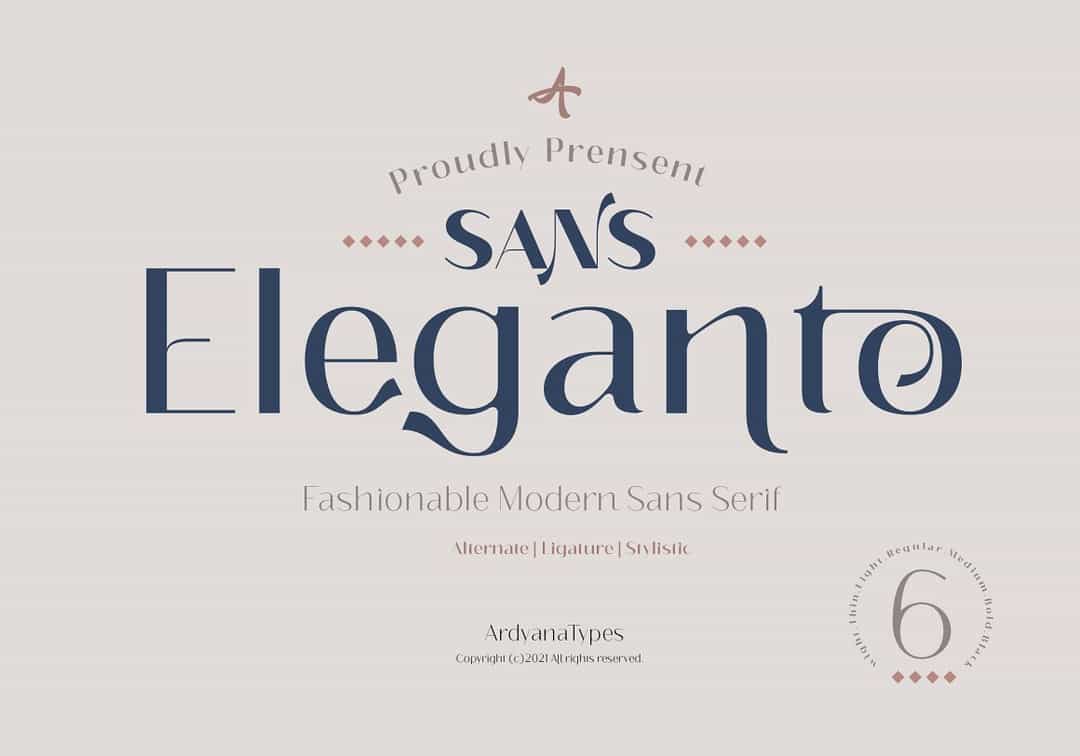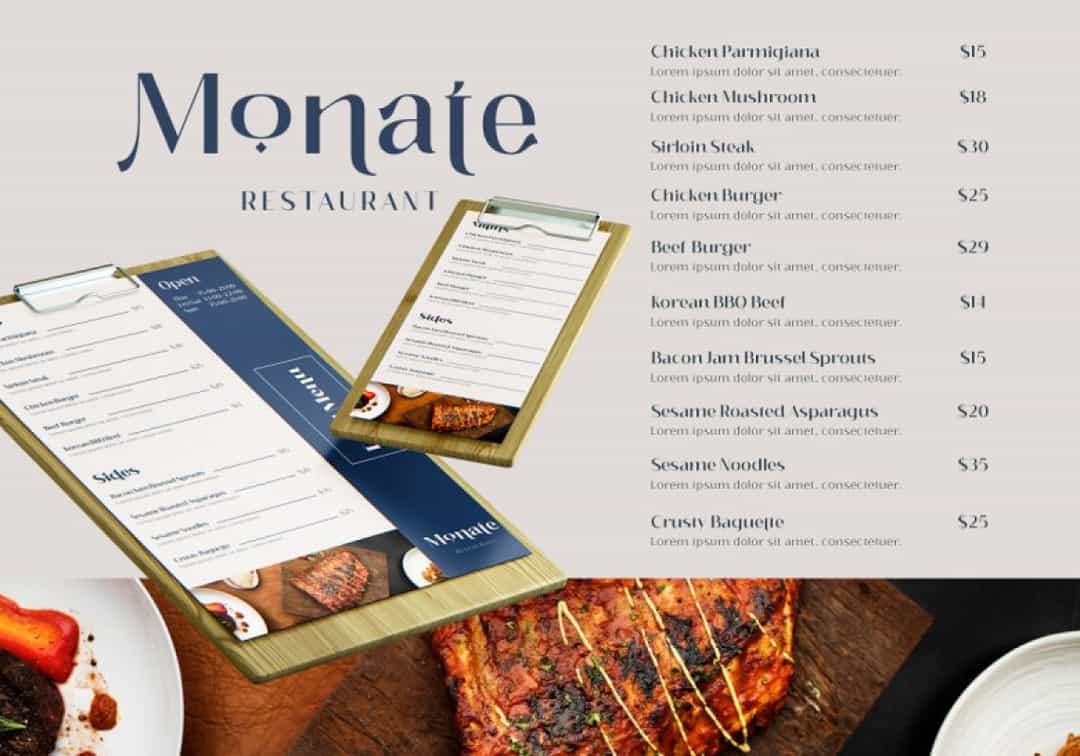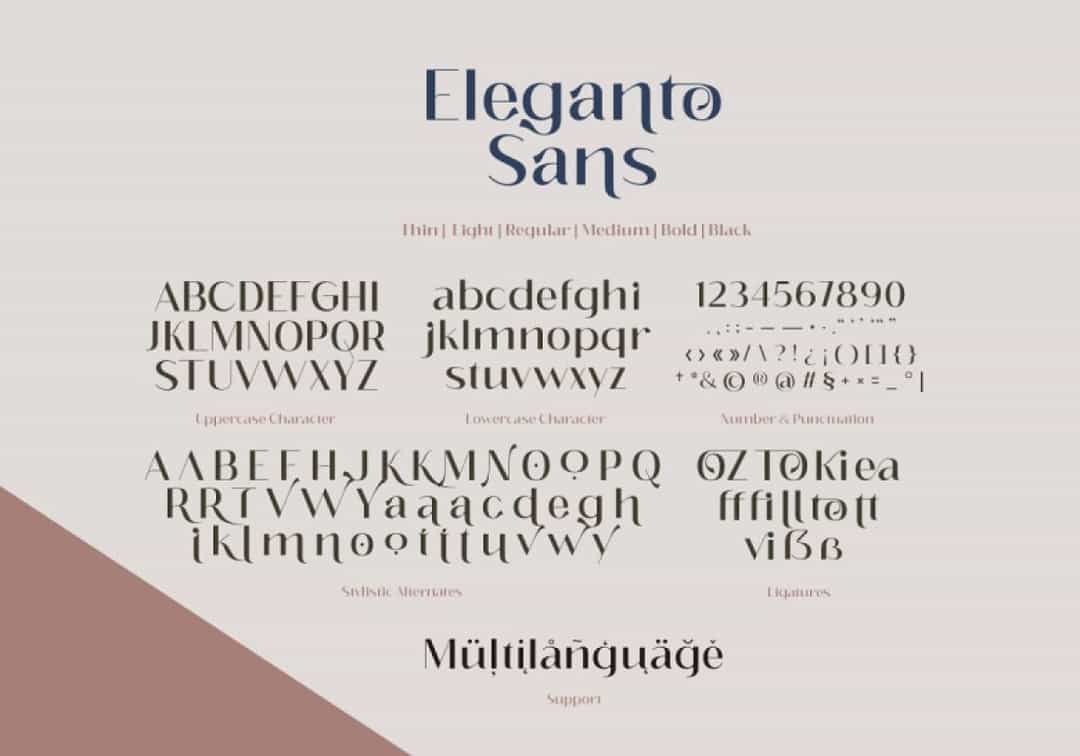
Eleganto is an eye-catching modern sans serif typeface featuring special alternate letters and multilingual support, perfect for elegant branding designs that combine sophistication, chicness and chicness with multilingual support. Take note of that curvaceous shape with flirty leg and hip movement! Eleganto will add extra excitement and character to your designs; six weight options can help make this font a better match to meet all of your design requirements.